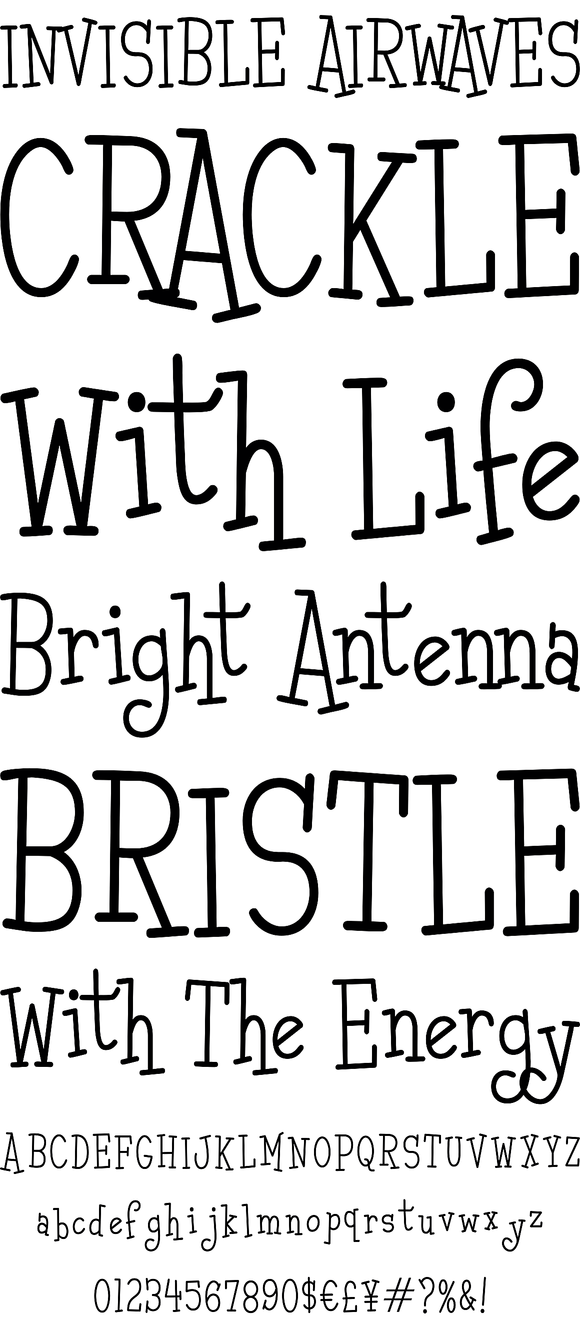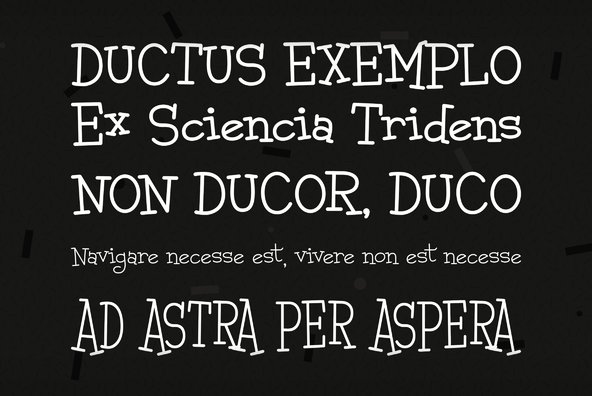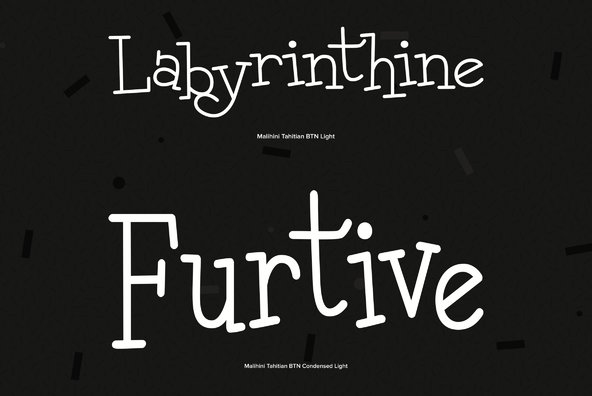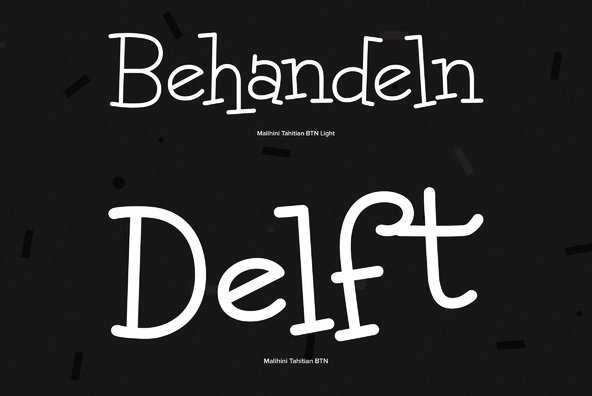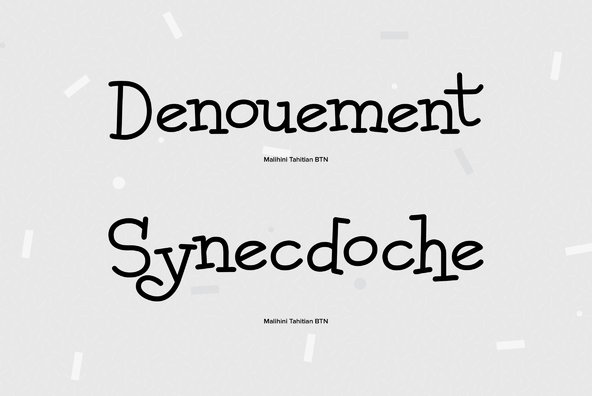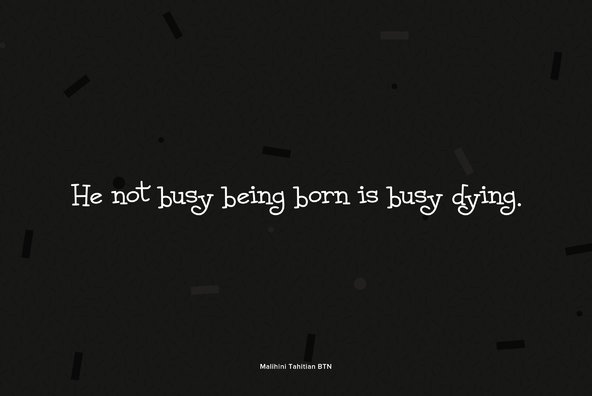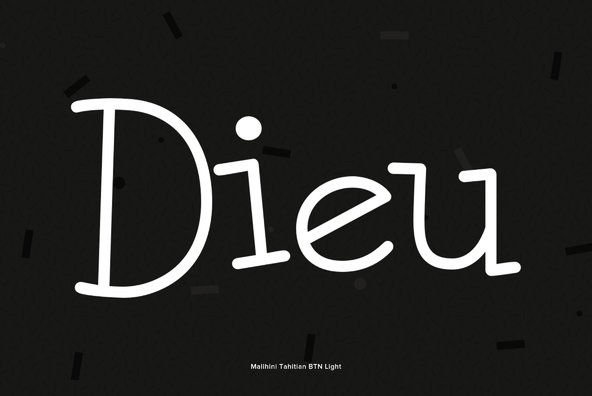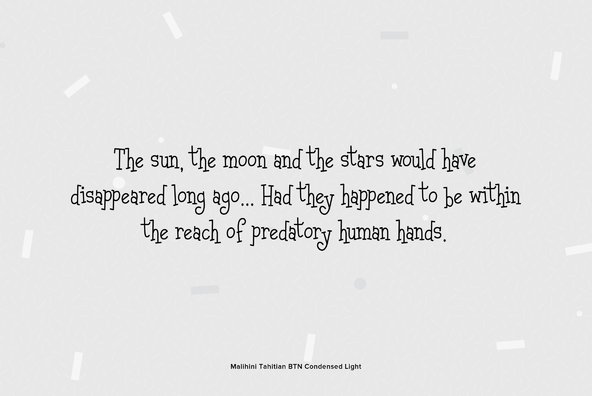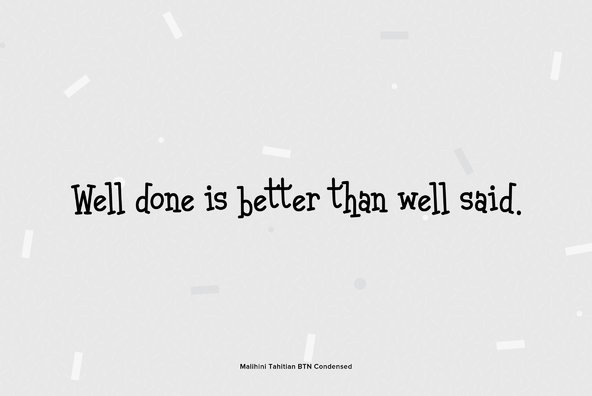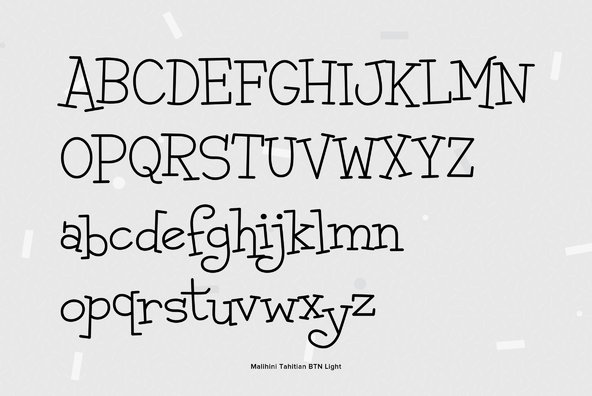
Malihini Tahitian is a playful exotic typeface for any island visitor. Malihini literally means foreign visitor, but there is nothing foreign about this fun family! The Tahitian weight offers a more relaxed feel to this versitile family!